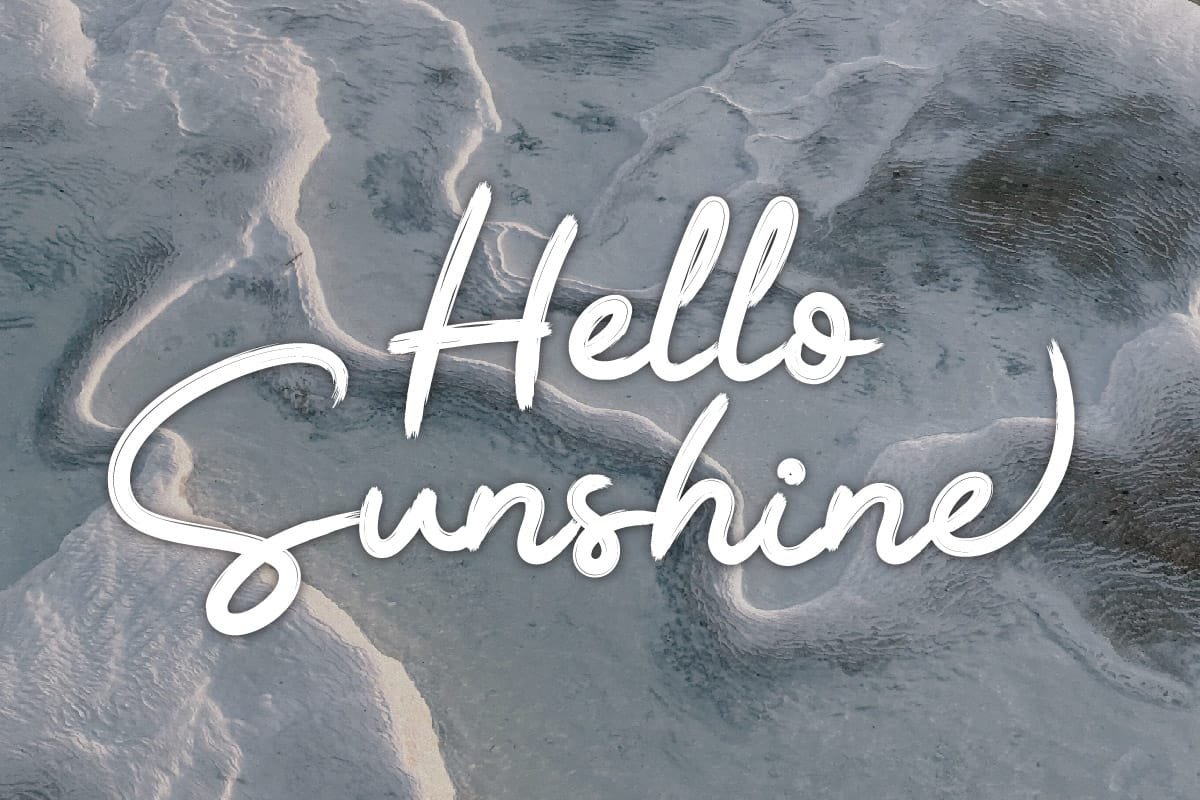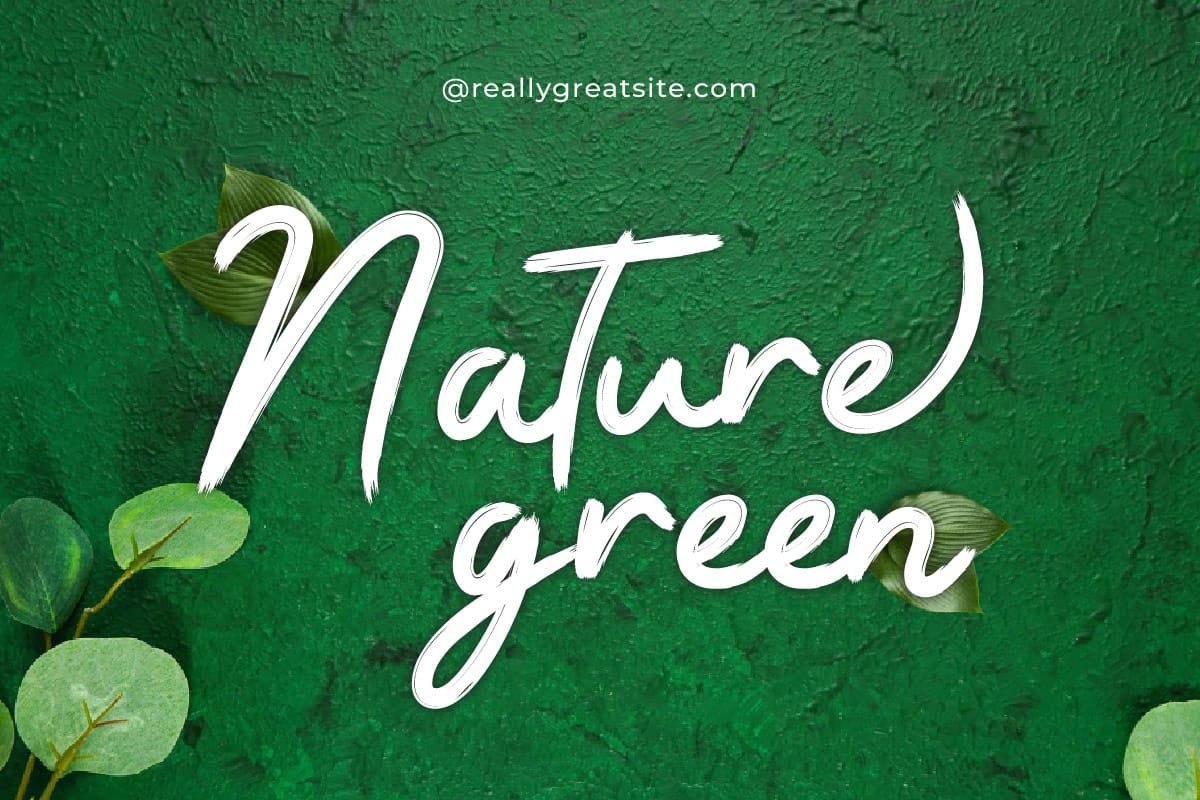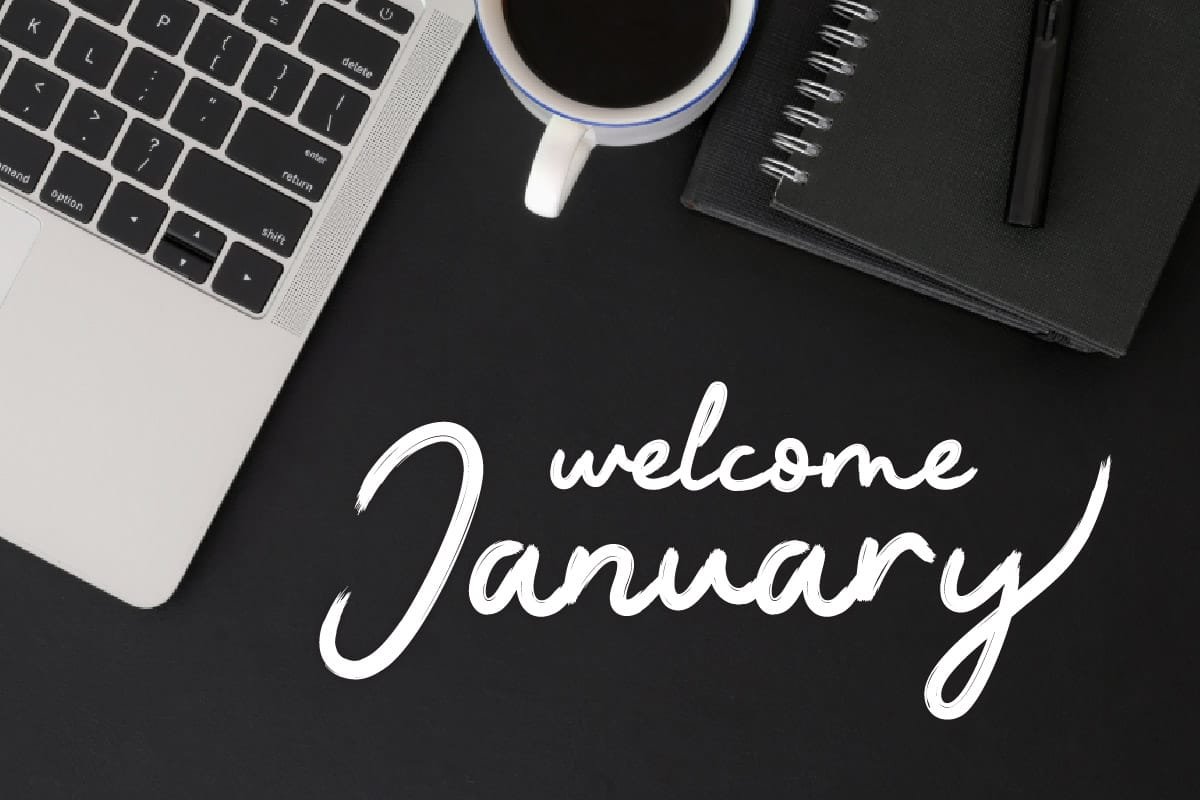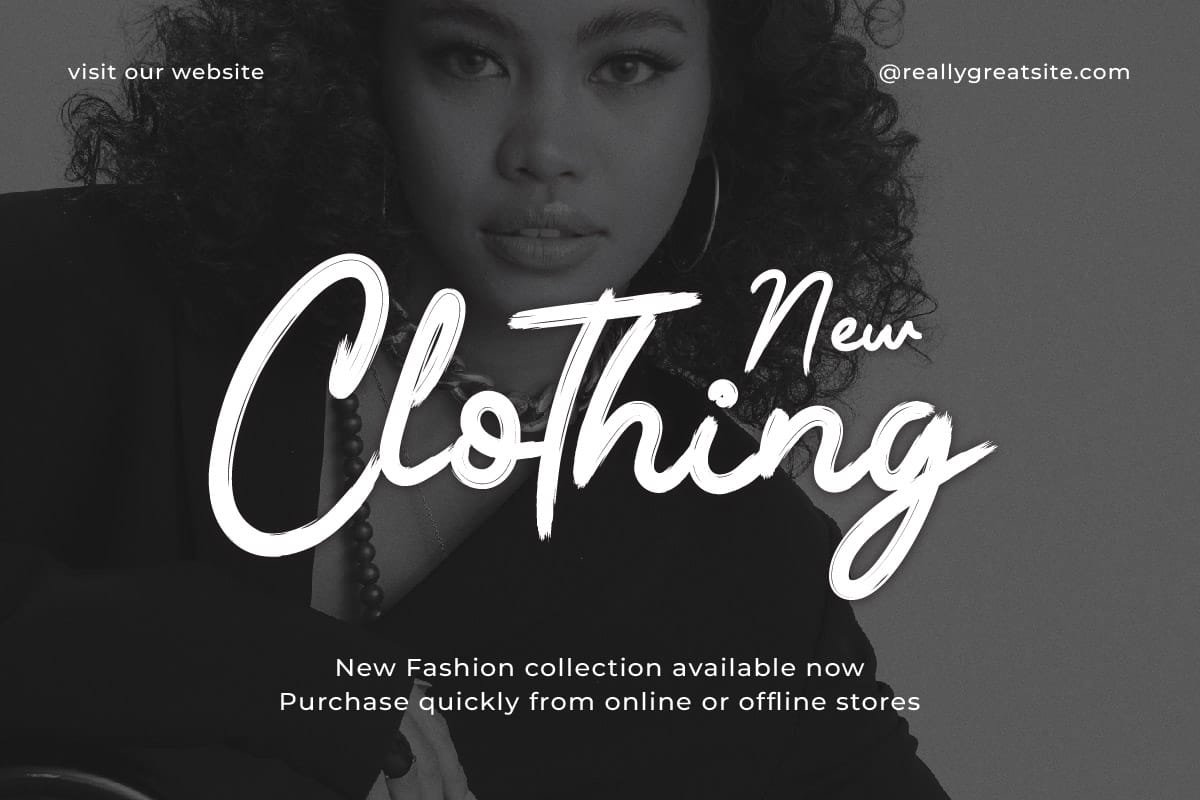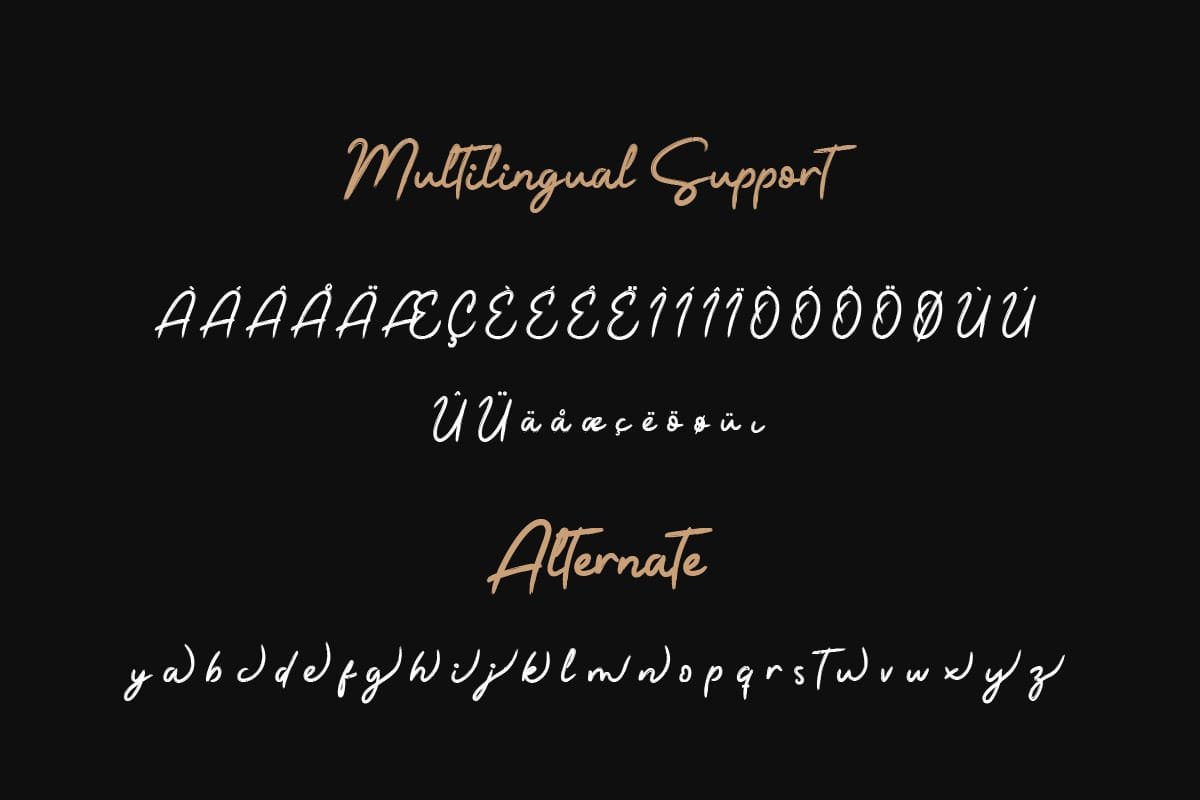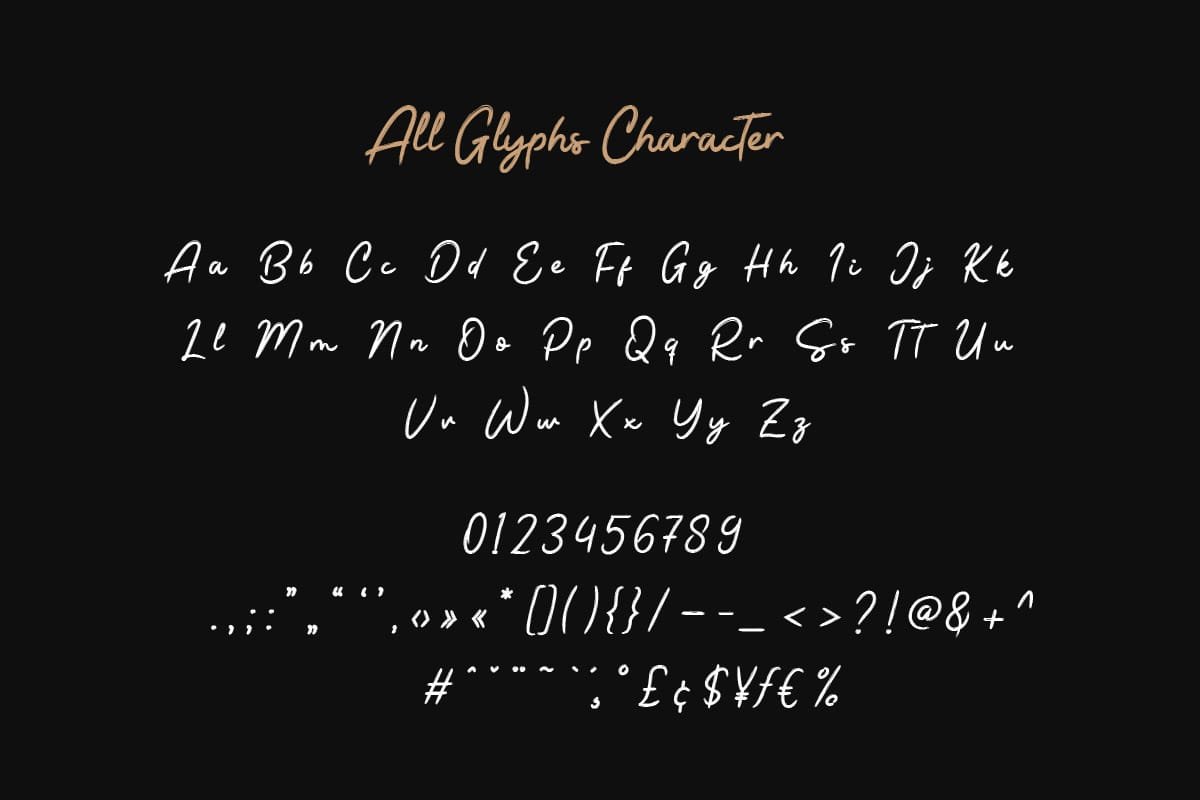
Baginda is a brush-written font that exudes a sense of royalty. Its elegant, flowing characters are perfect for designs that require a touch of elegance and refinement. Whether you’re creating a logo for a luxury brand or an invitation for a royal event, Baginda adds a touch of class that is sure to impress.